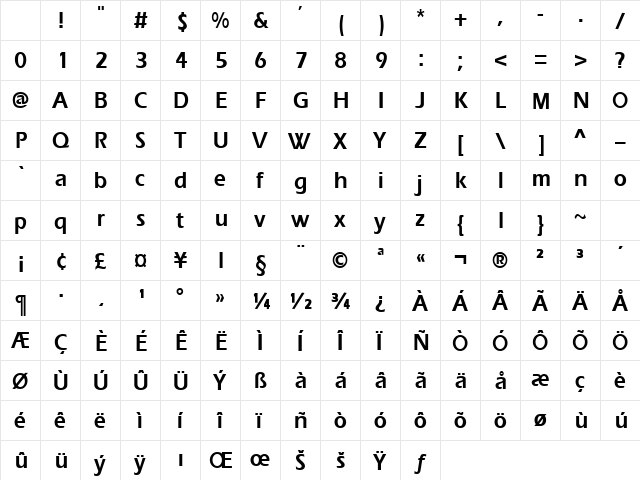
Complete EraserThin Bold glyph index. Displaying only characters natively supported by EraserThin Bold font.
EraserThin is a composed and adaptable typeface that performs quietly and consistently across a wide range of design contexts. Its bold stroke weight gives it real presence on the page.